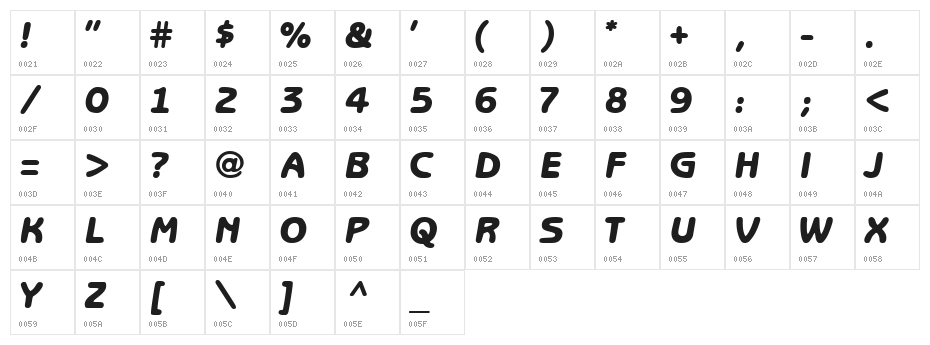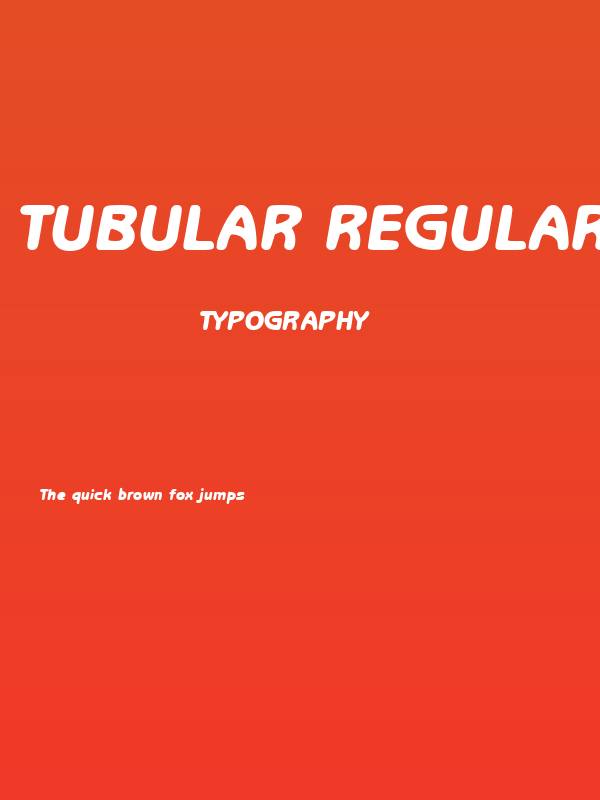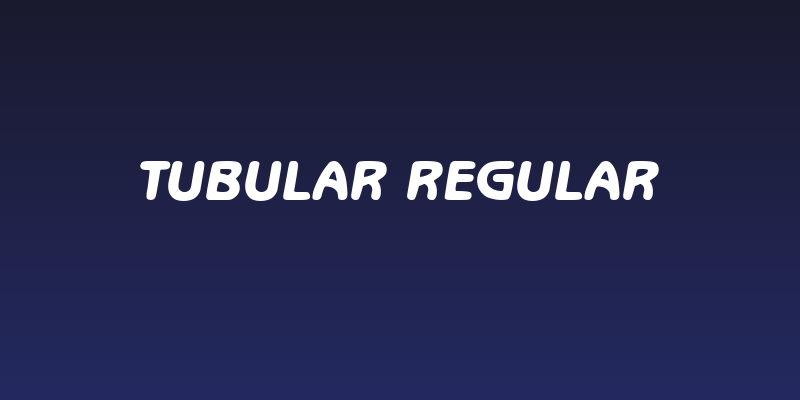
Tubular Regular Font
Tubular Regular Description
This font features a playful and rounded style, characterized by its smooth curves and bold presence. The letters are uniformly thick, giving a consistent and friendly appearance. Its rounded edges and lack of sharp angles contribute to a soft and approachable look, making it suitable for casual and informal designs. The numerals and special characters maintain the same rounded aesthetic, ensuring visual harmony across all elements. This font's design is ideal for projects that require a fun and engaging tone, such as children's books, playful branding, or creative posters.
| Proposed Projects | Ideal for children's books, playful branding, creative posters, and informal designs. |